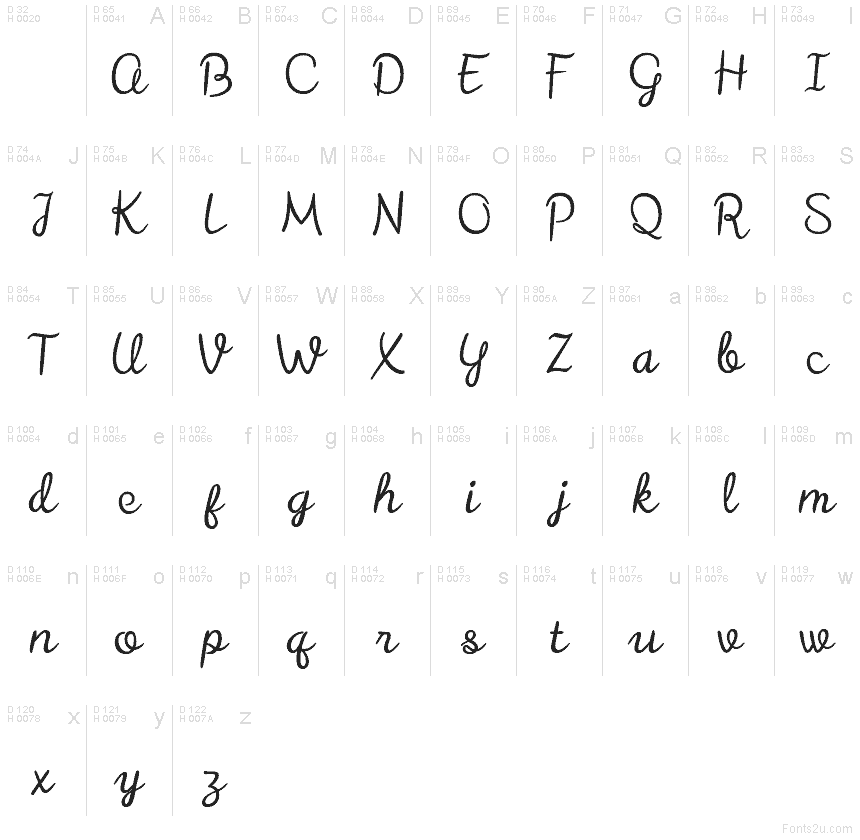
CS Gifted Regular Demo
CS Gifted font by Craft Supply Co. is a free monoline handwritten script font. It solves the common “cute-but-cluttered” script problem with calm rhythm, open counters, and roomy letterspacing that keep it effortlessly readable. A relaxed slant, rounded terminals, and a gentle bounce give it a warm, inky feel—like a neat note written with a fine gel pen.